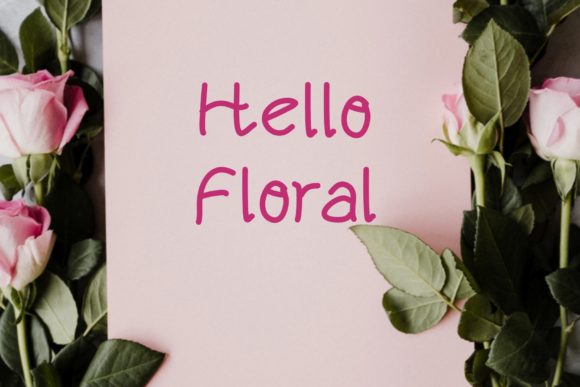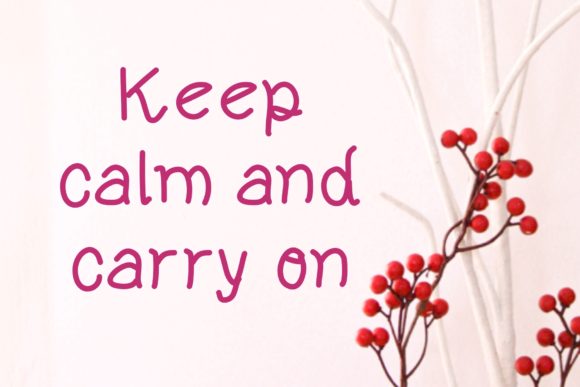
Candy Crush Font: The Sweetest Addition to Your Design Collection
Are you tired of using the same old fonts in your designs? Look no further than the Candy Crush Font, a cute and unique handwritten font that’s sure to add a touch of whimsy to your creations. With its incredibly versatile style, you’ll fall in love with the way it can transform your designs and make them truly spectacular.
The Charm of Candy Crush Font
The Candy Crush Font is a one-of-a-kind, handcrafted font that’s perfect for designers and crafters who want to add a dash of sweetness to their work. Its unique, handwritten style is reminiscent of childhood treats and memories, making it an ideal choice for projects that require a playful and youthful touch.
What Makes Candy Crush Font So Versatile?
One of the best things about the Candy Crush Font is its versatility. Whether you’re working on a logo, a poster, a social media graphic, or a craft project, this font can adapt to any style or theme. Its clean lines and delicate curves make it perfect for:
- Children’s party invitations and decorations
- Candy and dessert-themed branding and packaging
- Handmade crafts, such as scrapbooking and card-making
- Wedding and event stationery
Features of Candy Crush Font
The Candy Crush Font boasts a range of features that make it a must-have for designers and crafters. Some of its key features include:
- Unique, handwritten style
- Clean lines and delicate curves
- Support for multiple languages
- Alternate characters and swashes
- Easy to read and use
How to Use Candy Crush Font in Your Designs
Using the Candy Crush Font in your designs is easy and straightforward. Here are a few tips to get you started:
- Pair it with bold colors and playful graphics for a fun and youthful look
- Use it as a headline font to add a touch of whimsy to your designs
- Experiment with different font sizes and styles to create visual interest
- Add textures and patterns to give your designs a tactile feel
Whether you’re a seasoned designer or a crafty DIY enthusiast, the Candy Crush Font is sure to inspire your creativity. Here are a few tips to help you make the most of this amazing font:
- Experiment with different font combinations to create a unique look
- Use the font to add a personal touch to your designs and crafts
- Don’t be afraid to get creative and try new things